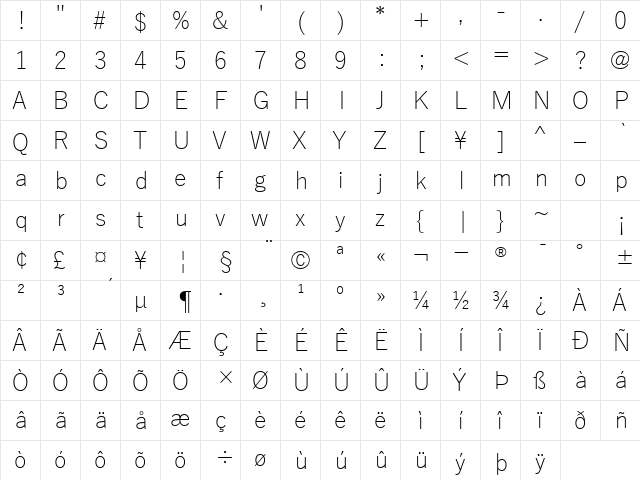
Yu Gothic Light Regular
| Foundry | JIYUKOBO Ltd. |
| Designer | JIYUKOBO Ltd. |
Design Context for Yu Gothic Light Typeface
Yu Gothic Light takes a clean, functional approach — its unadorned letterforms prioritise legibility and work reliably across screen and print environments. Its slender proportions lend an understated elegance to any composition.
Ideal for fashion and beauty branding, minimal editorial layouts, and premium digital experiences.
Font Pairing: Pair Yu Gothic Light with a medium or bold serif for headlines — the weight contrast creates an elegant, high-end feel.
Pro Tip: Avoid using Yu Gothic Light at very small sizes where its slender strokes can disappear. It performs best at medium to large sizes.